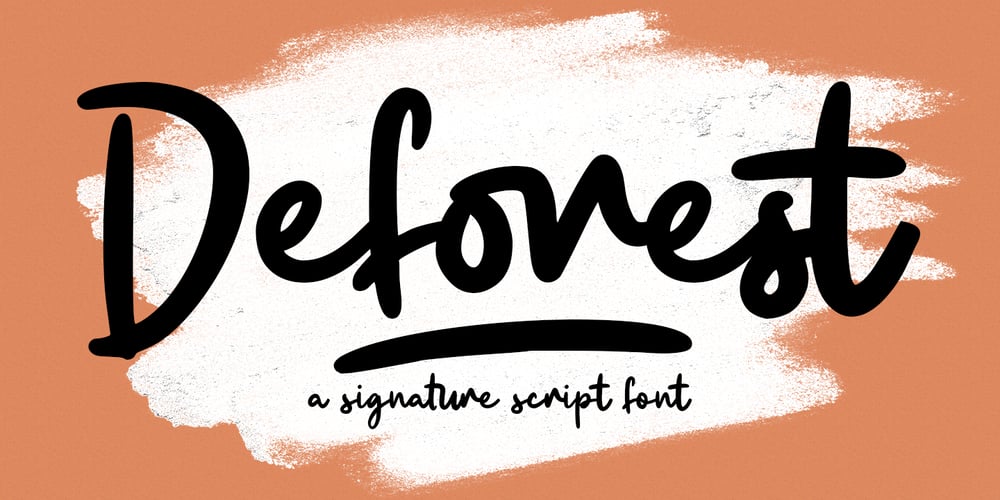
Deforest
Deforest font
Deforest Font Family was designed by Gilang Maulana and published by Maulana Creative. Deforest contains 2 styles and family package options. Deforest is a casual handwritten script font. With bold contrast stroke, fun character with a bit of ligatures and swashes. To give you an extra creative work. Deforest font support multilingual more than 100+ language. This font is good for logo design, Social media, Movie Titles, Books Titles, a short text even a long text letter and good for your secondary text font with sans or serif. Make a stunning work with Deforest font. Cheers, Maulana Creative